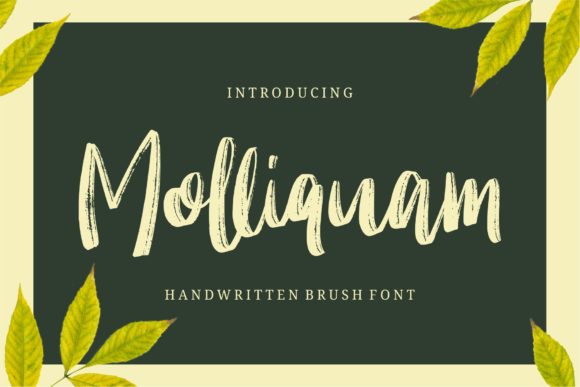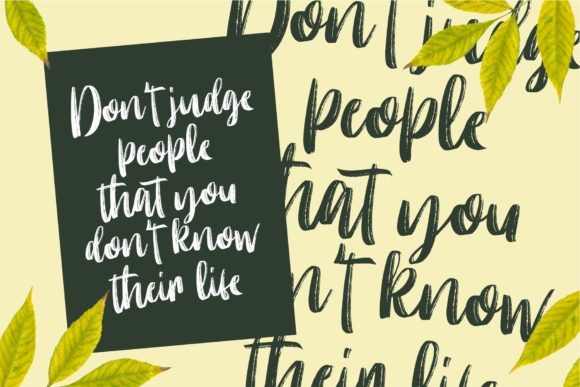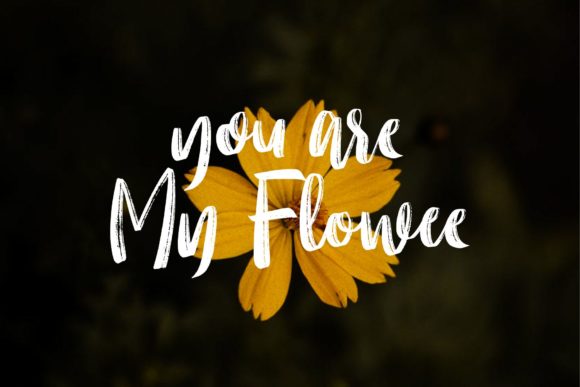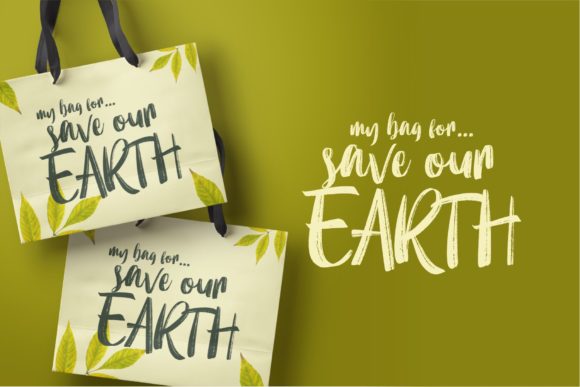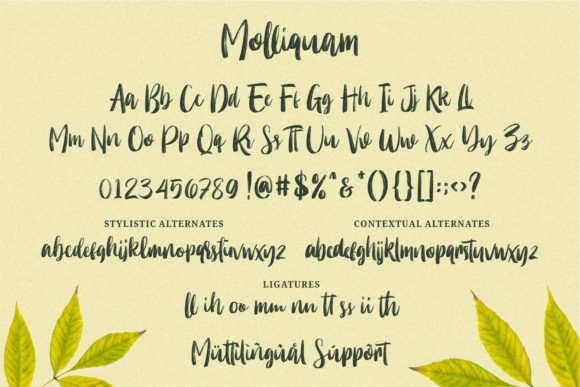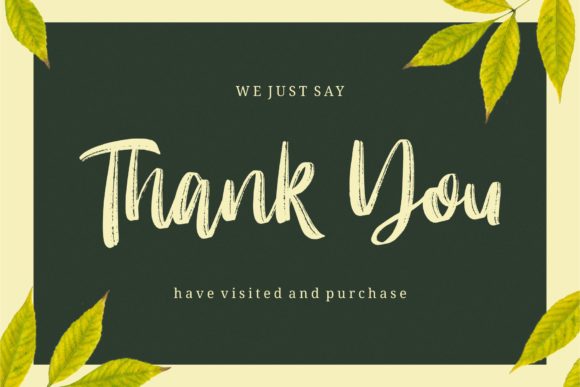
Molliquam Font
About Molliquam Font
Molliquam is a beautiful and charming handwritten font with loads of personal charm! It will add a unique twist to any design idea.